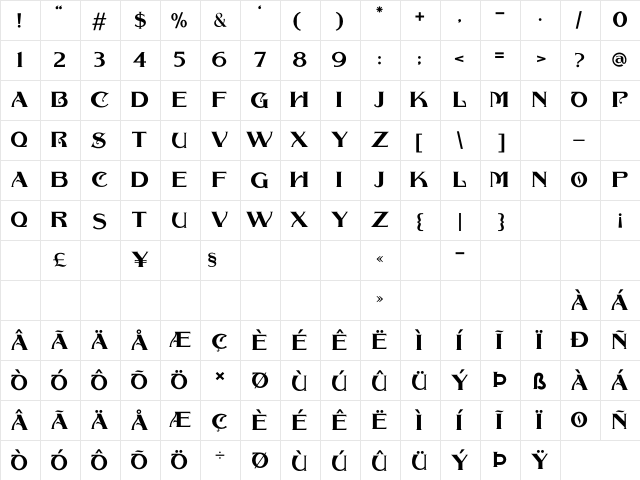
COLLONAR CAP Regular
Designer: Lettersiro 2018
Design Context for COLLONAR CAP
COLLONAR CAP is a composed and adaptable typeface that performs quietly and consistently across a wide range of design contexts.